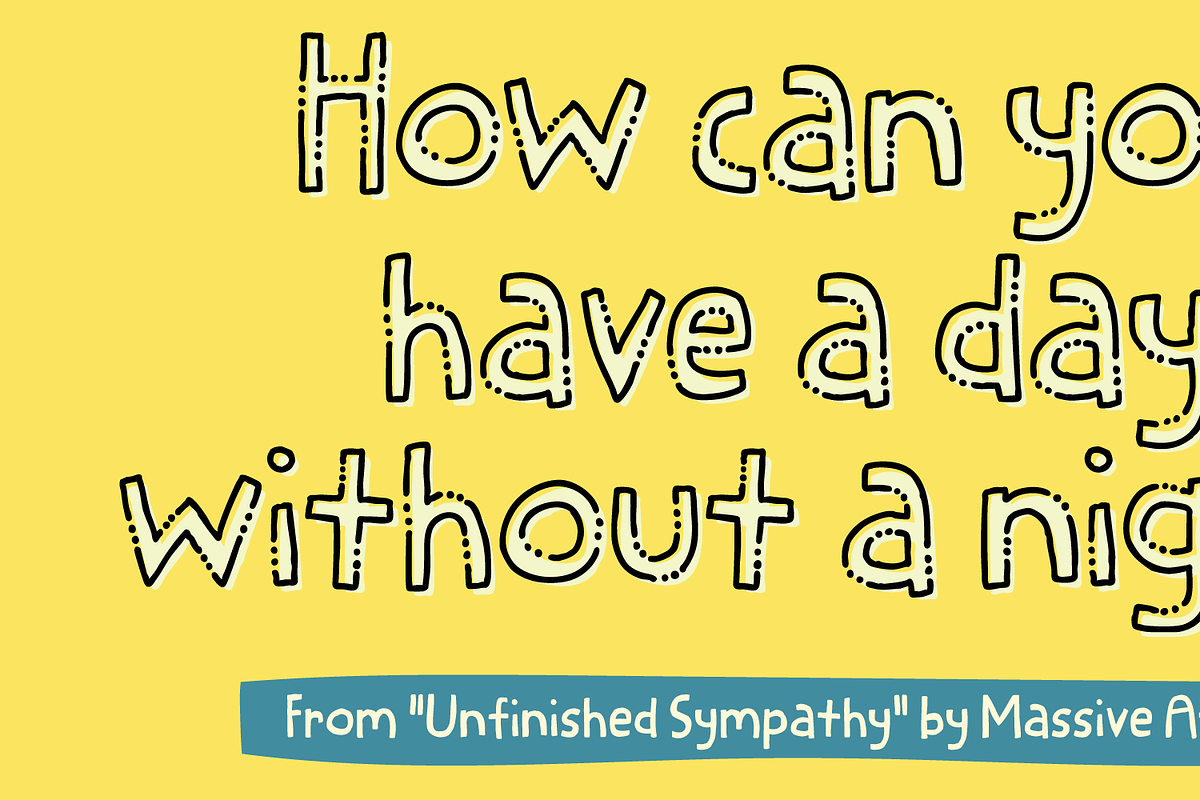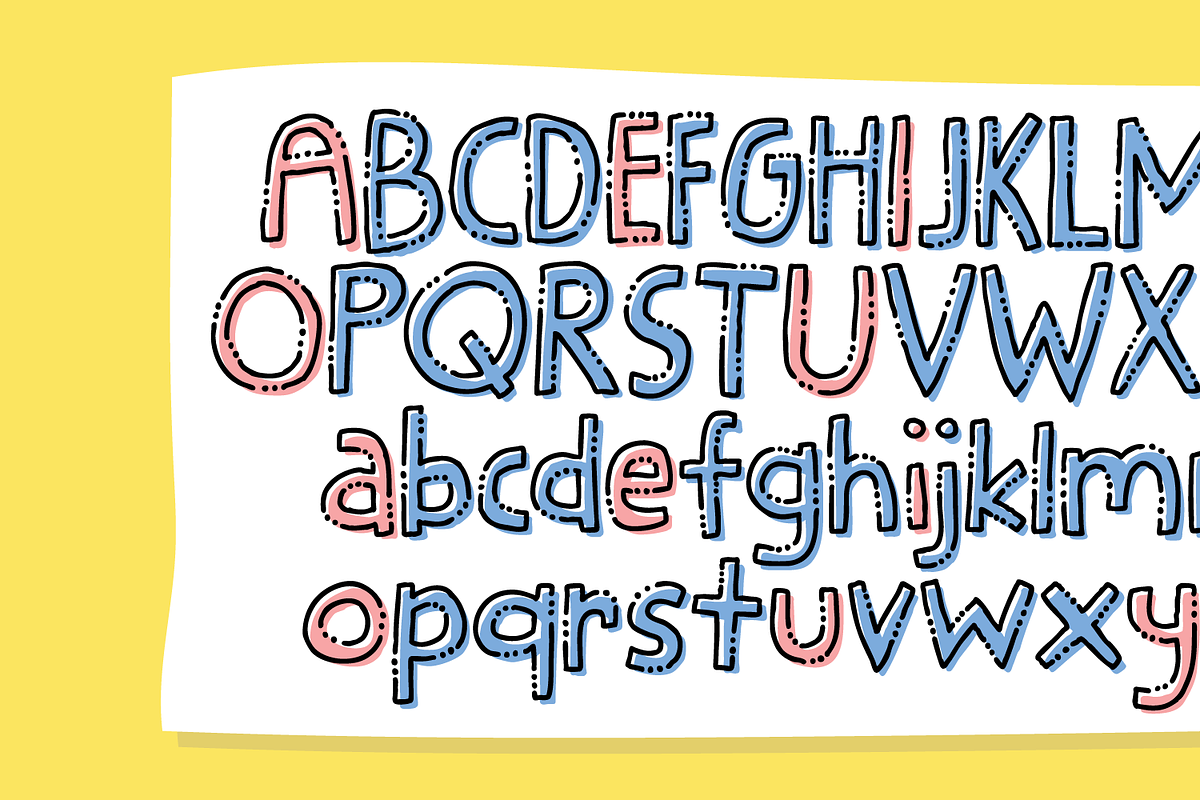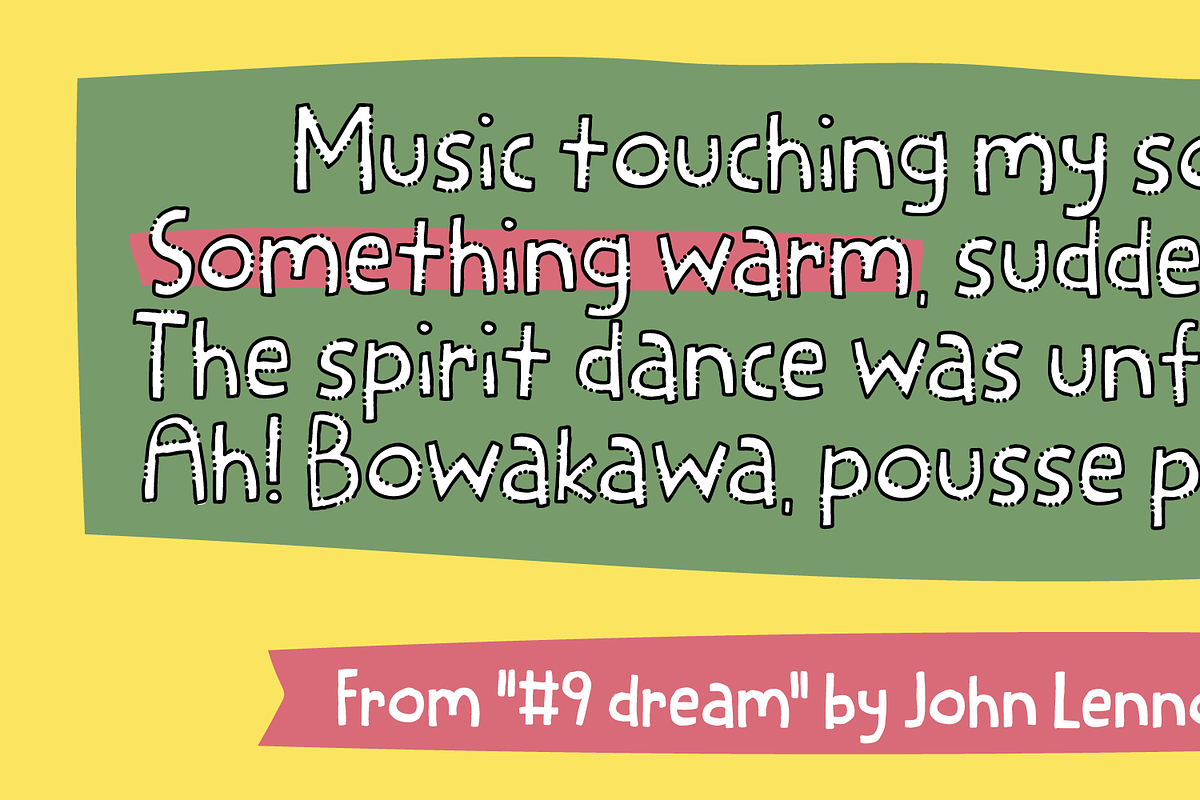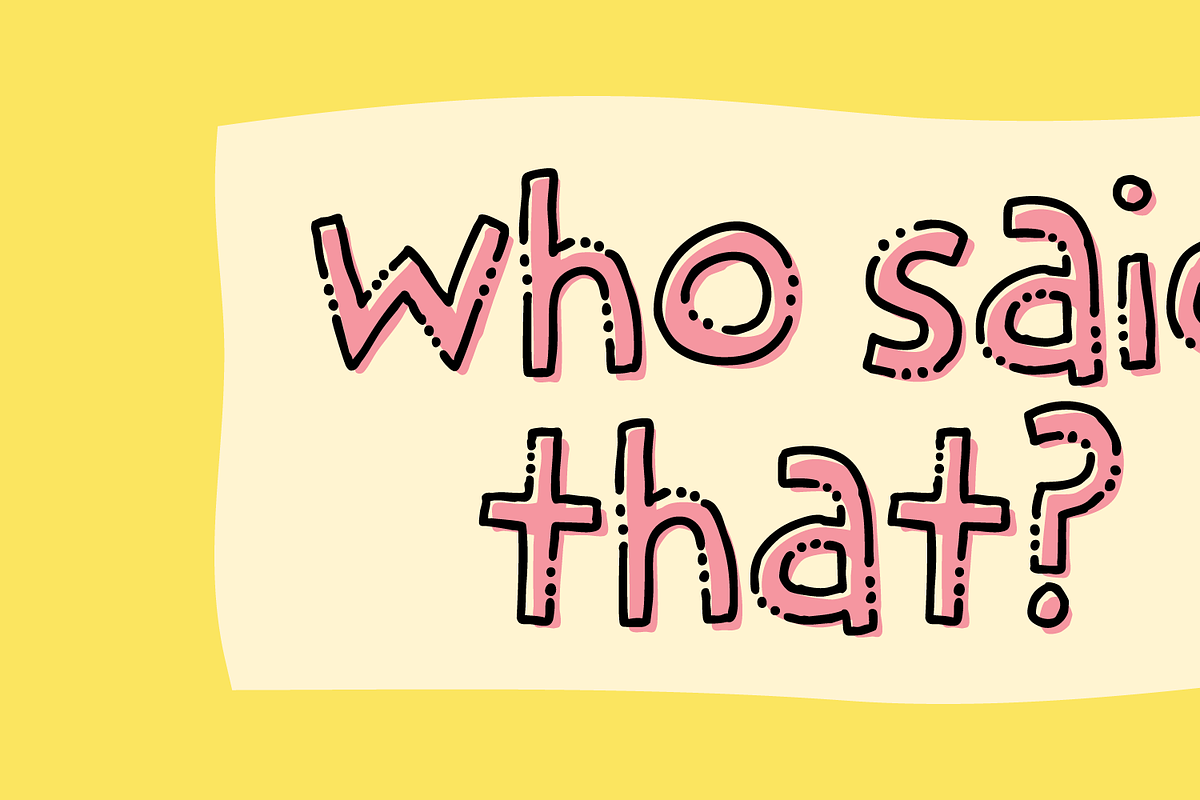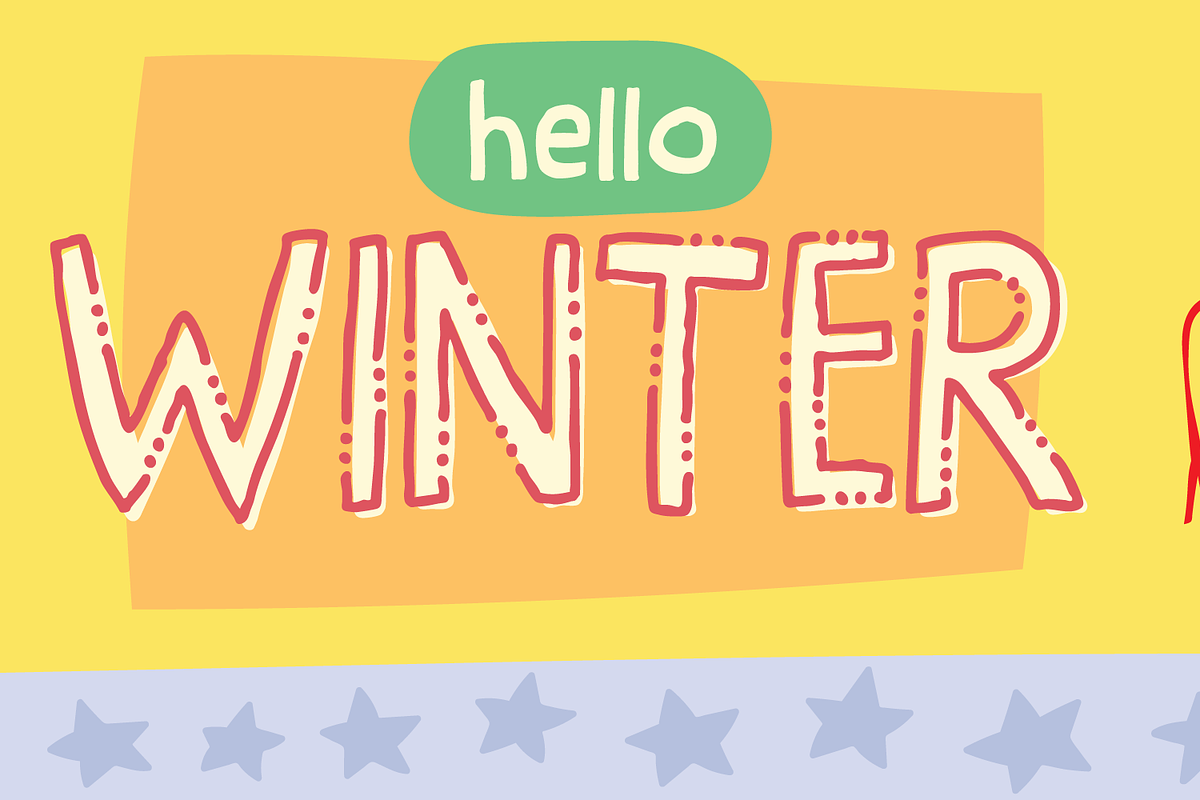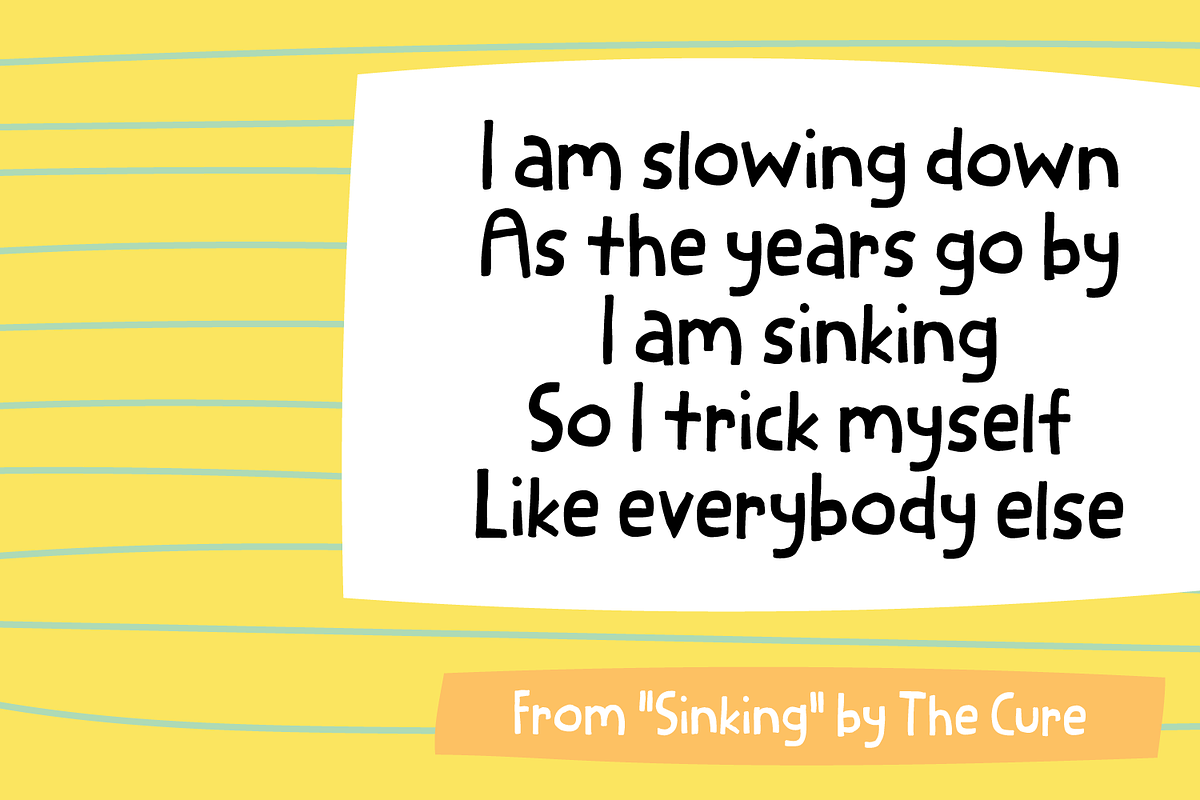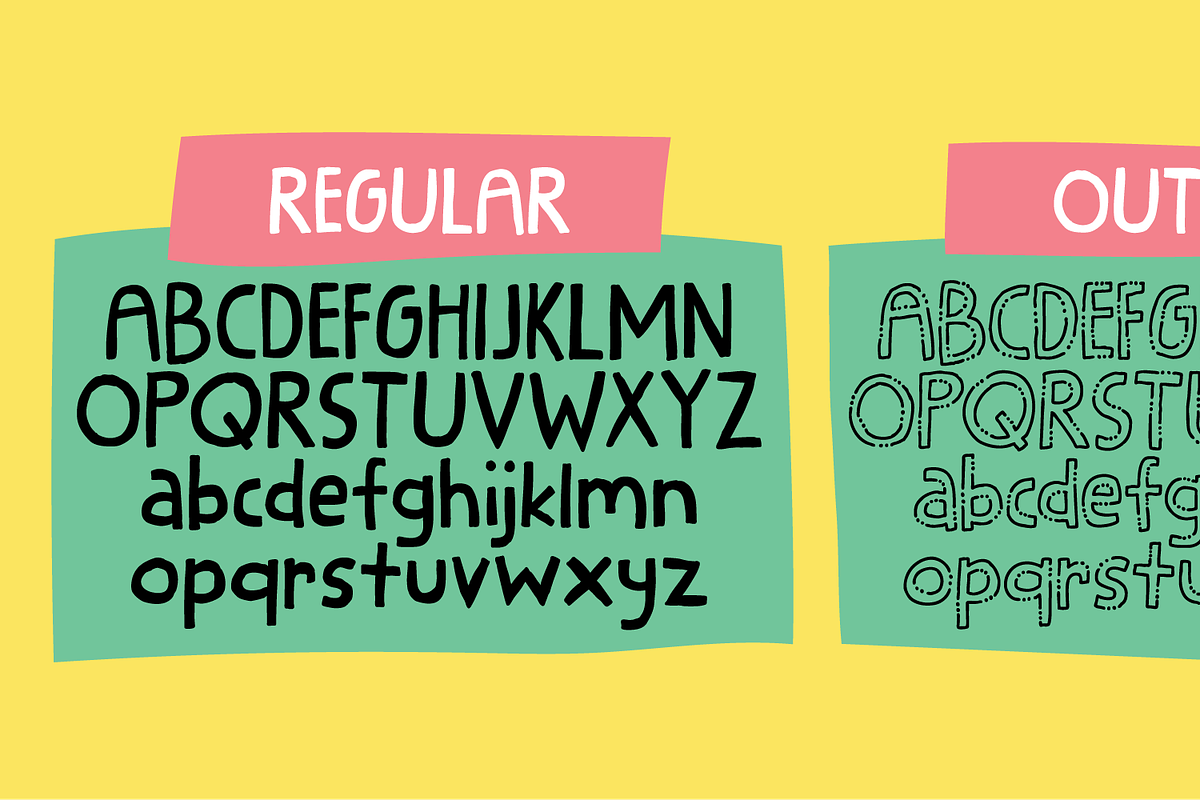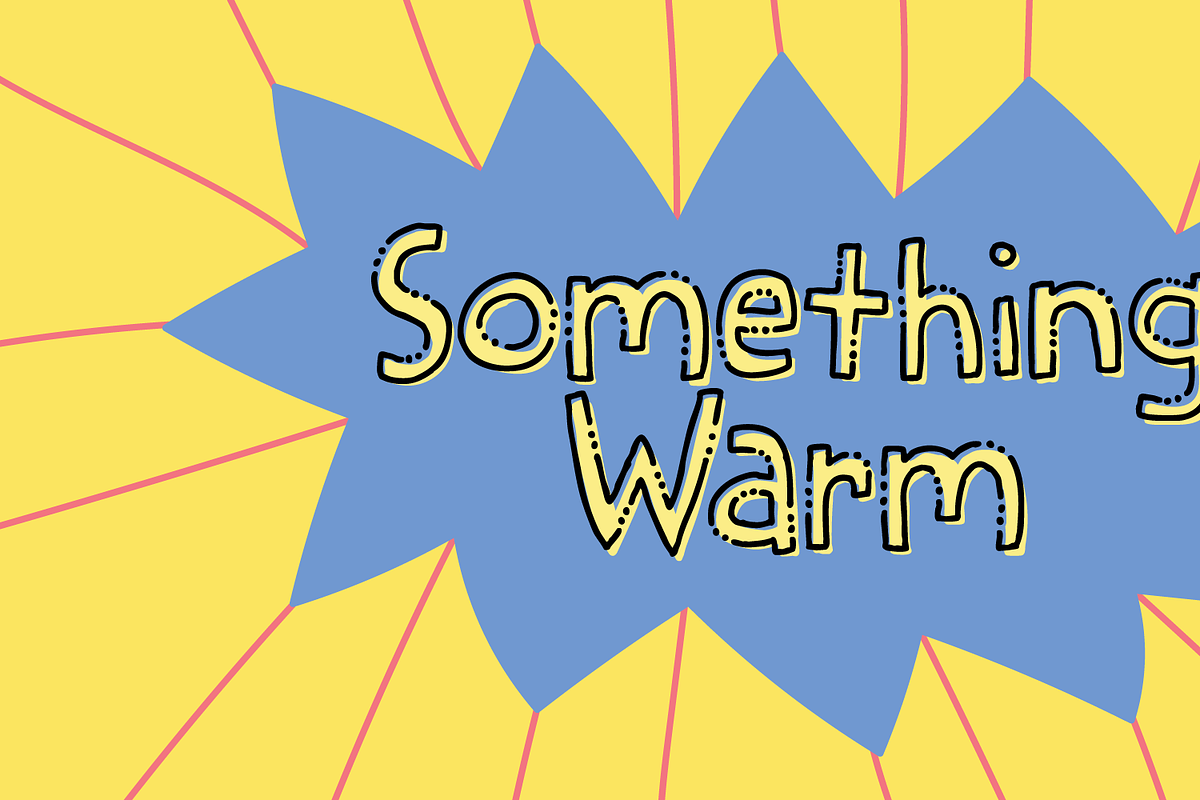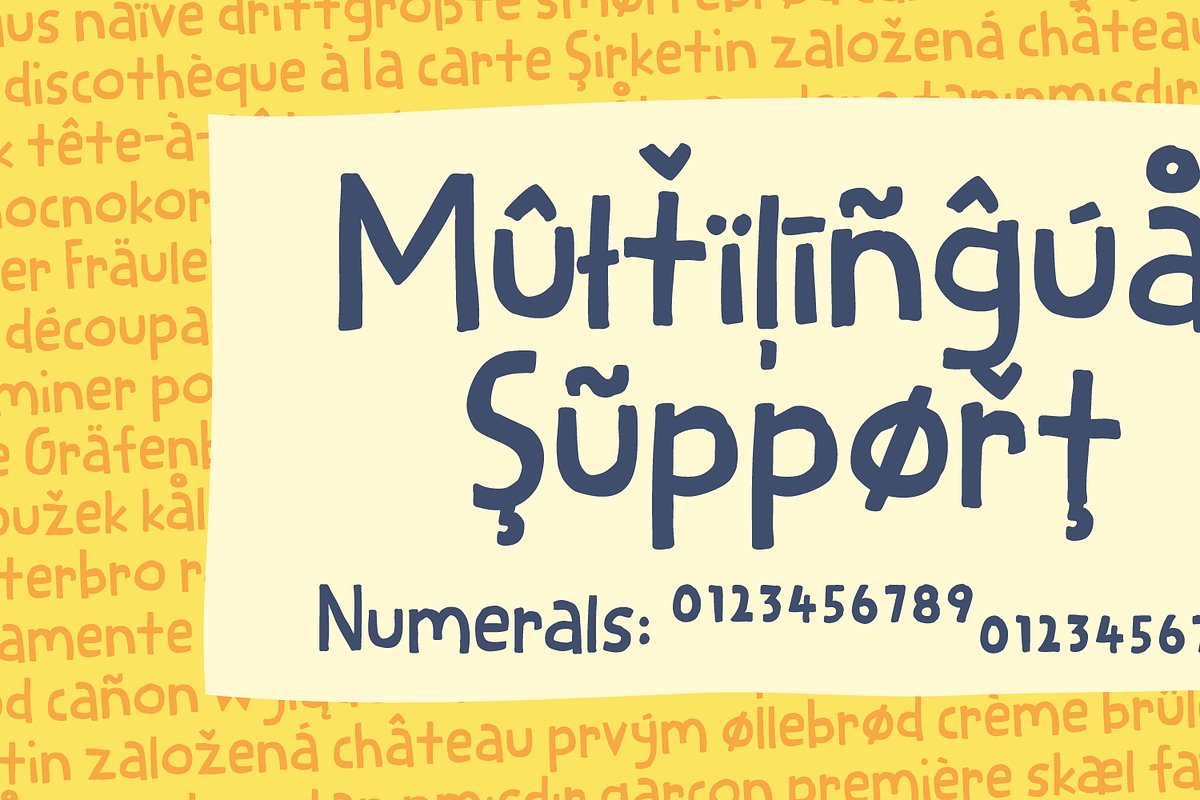
Something Warm - a comfy font
The phrase “Something Warm” comes from a song by John Lennon. The font is fresh, organic and handmade font - legible both as lowercase, but also super nice in all-caps. The organic comic look makes it ideal for branding, social media, books for kids, stationary, packaging and greeting cards. Basically, Something Warm is full of fun and playfullness! Along comes an outlined version with “mysterious dots” - as I like to call them :) Adding both strength and extra creativity to your project!